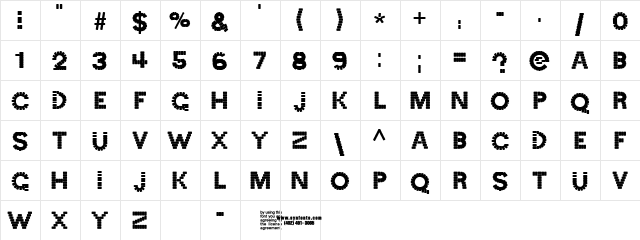
Neck Candy Filler Regular
Design Context for Neck Candy Filler Typeface
Neck Candy Filler is a composed and adaptable typeface that performs quietly and consistently across a wide range of design contexts.